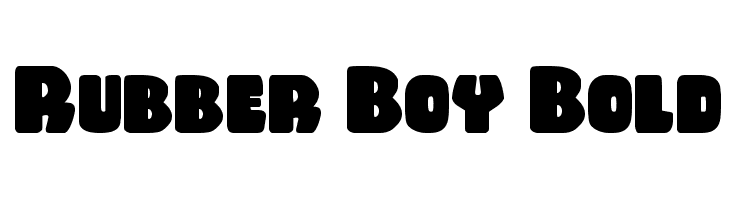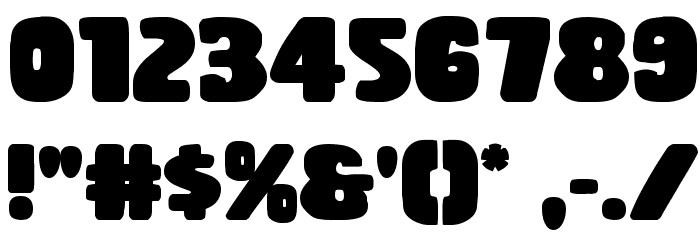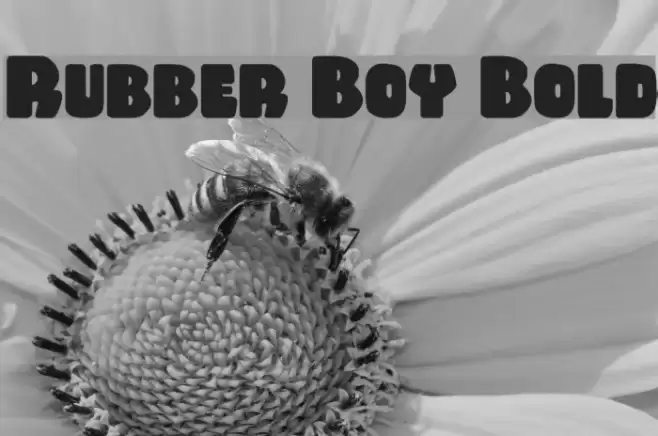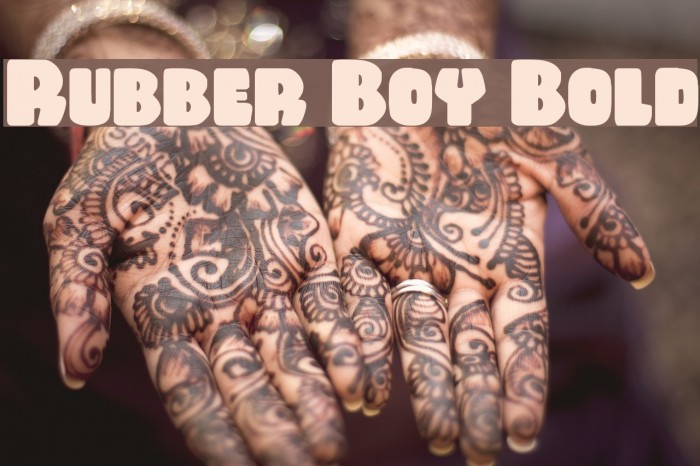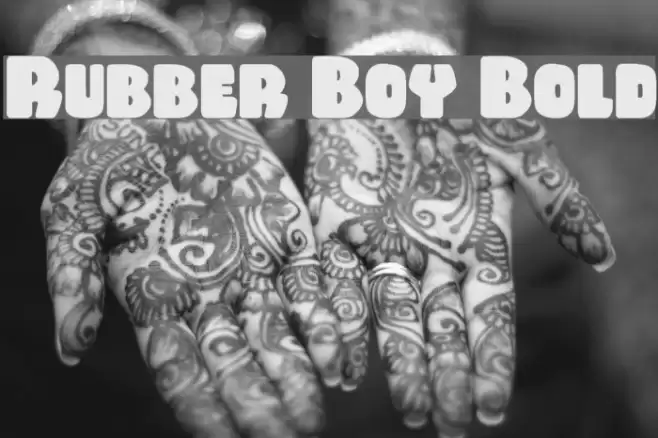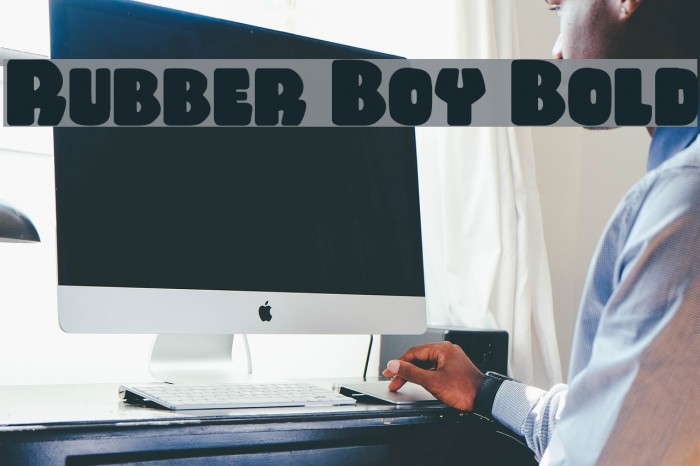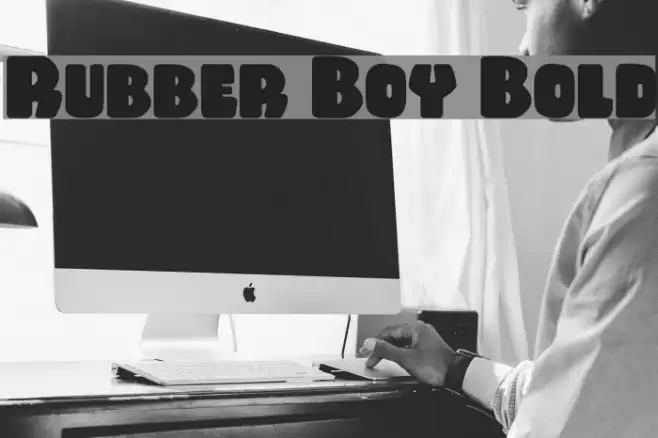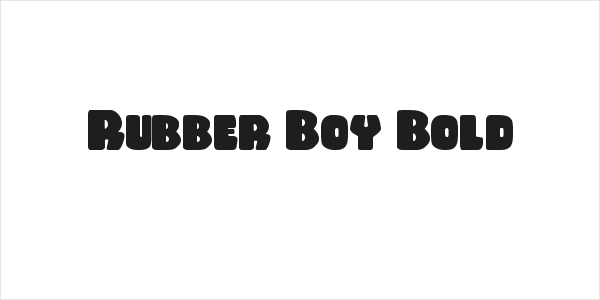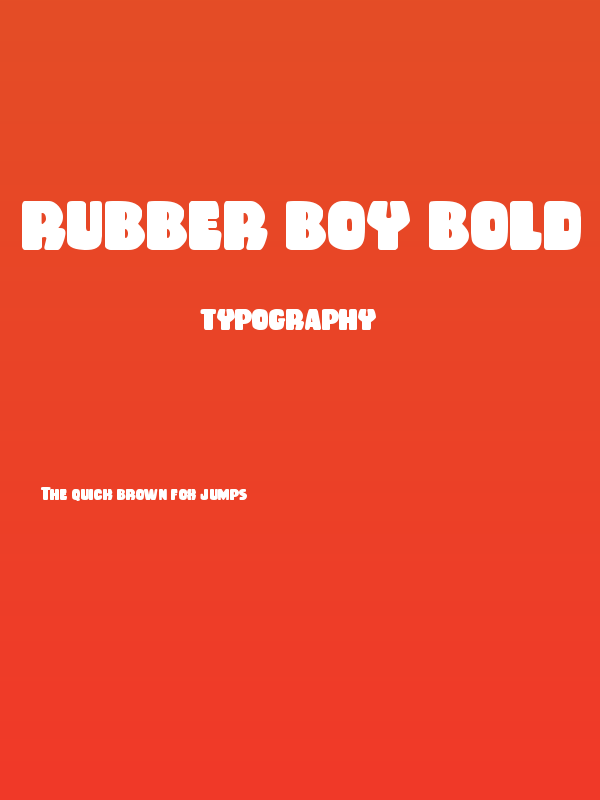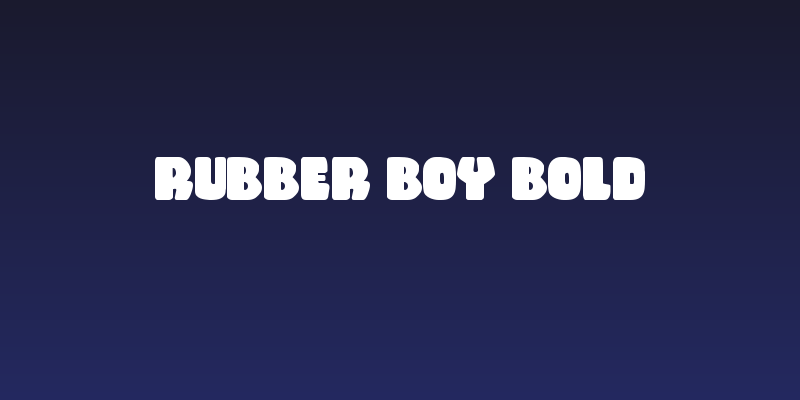
Rubber Boy Bold Font
Rubber Boy Bold Description
This font features a bold and playful style with rounded edges and a thick, substantial presence. The characters are uniformly bold, creating a strong visual impact. The rounded forms give it a friendly and approachable feel, making it suitable for designs that require a touch of whimsy and boldness. The font maintains consistent weight across all characters, ensuring a cohesive look. Its robust design makes it ideal for grabbing attention and conveying messages with clarity and emphasis.
Overall StylePlayful, Bold
Proposed ProjectsIdeal for children's books, playful branding, posters, and eye-catching headlines.